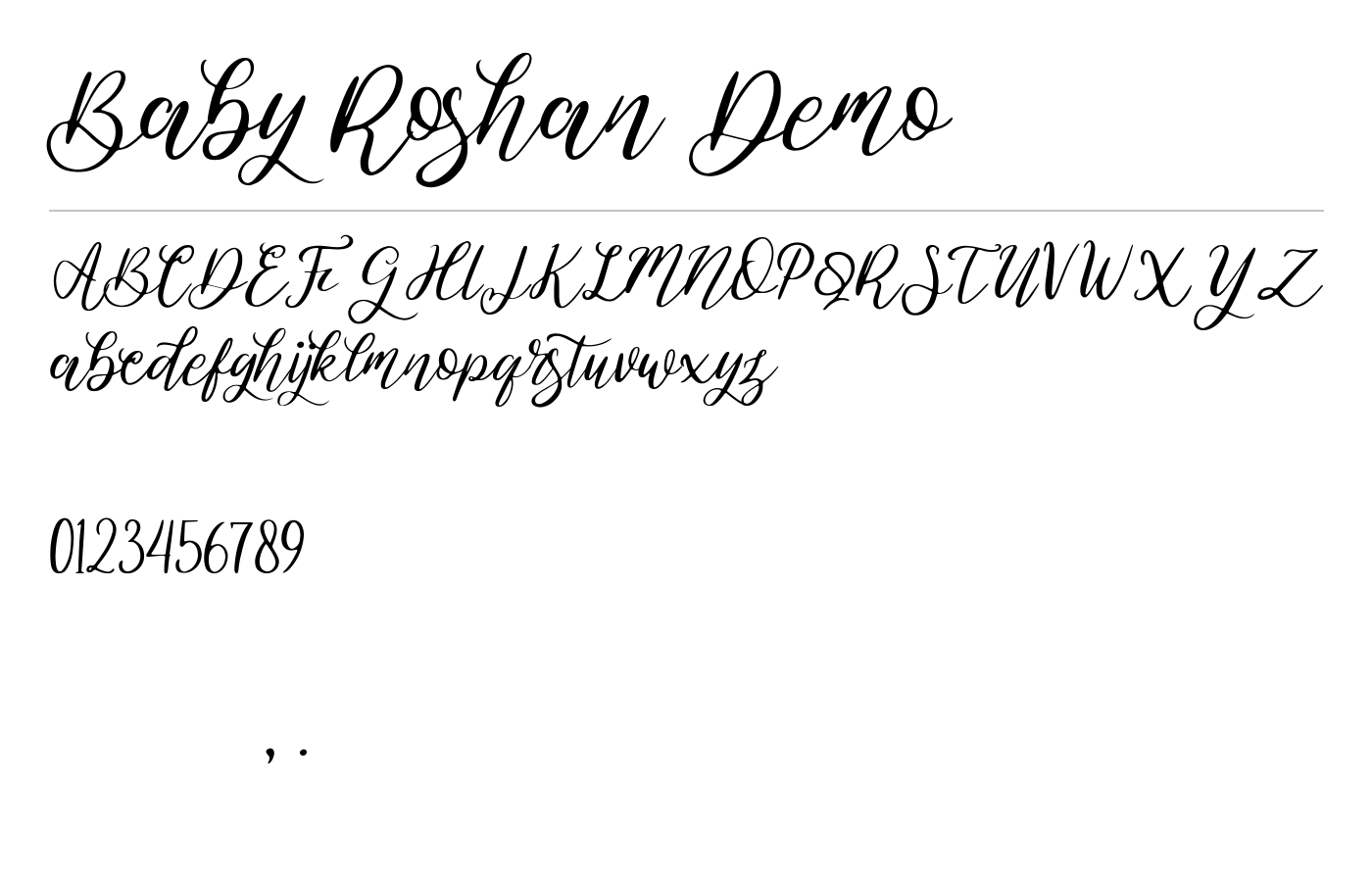
Baby Roshan Demo is an elegant script font featuring smooth, flowing strokes that create a graceful and refined appearance. Its slender, slightly condensed letterforms with delicate flourishes make it perfect for invitations, branding, and designs that require a touch of sophistication and charm. This font’s stylish curves and clear readability bring a sense of warmth and personality to any creative project.
Baby Roshan Demo Font
About Baby Roshan Demo Font
| Font family | Baby Roshan Demo Font |
| Designer | Forberas Club |